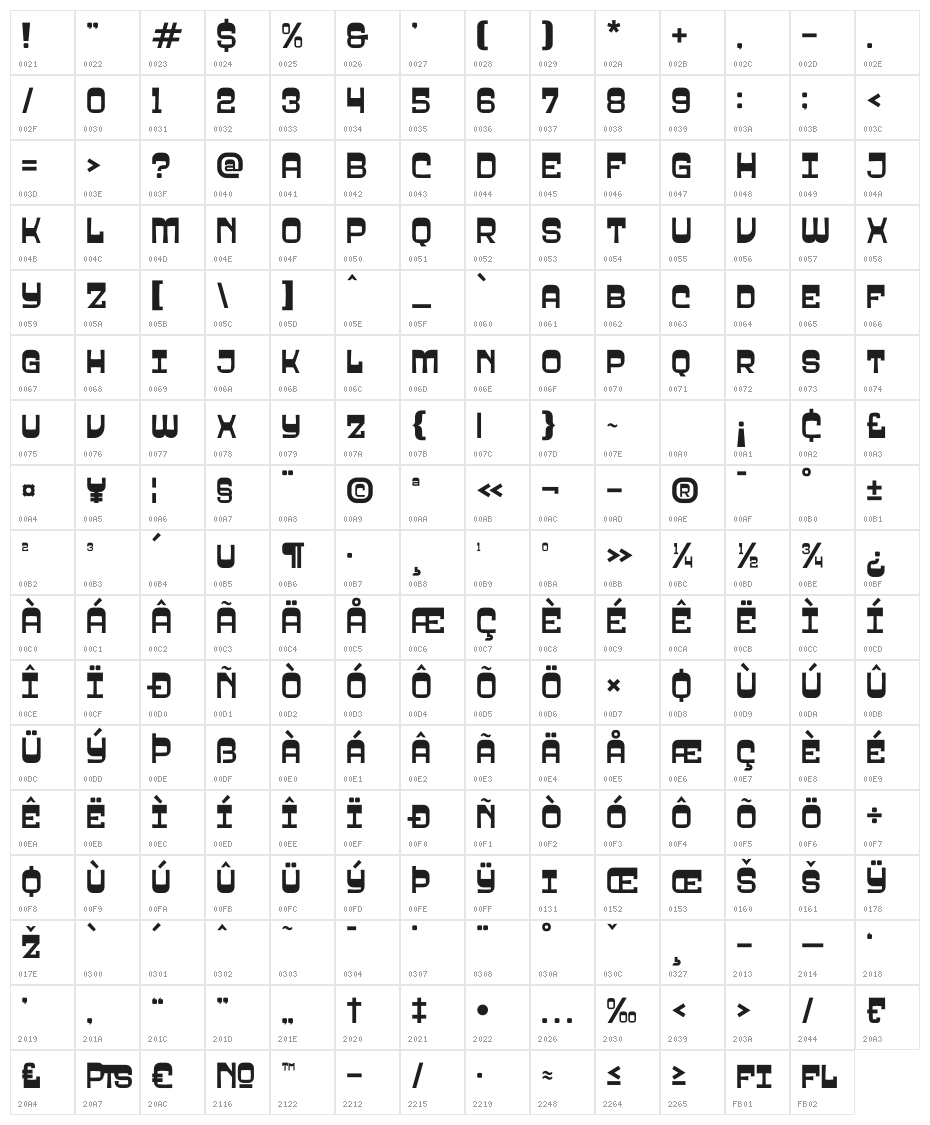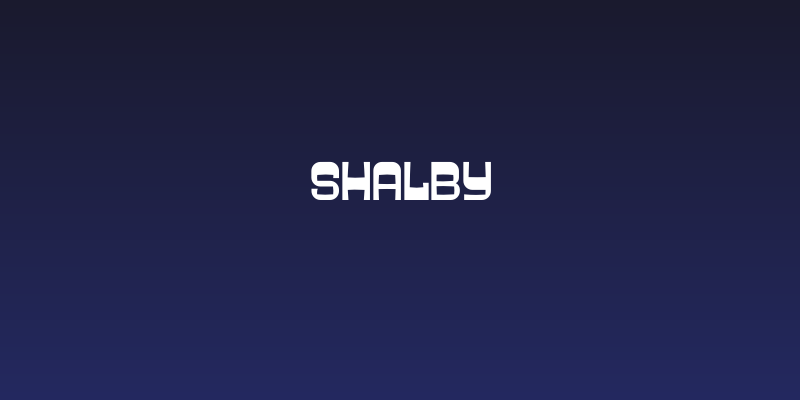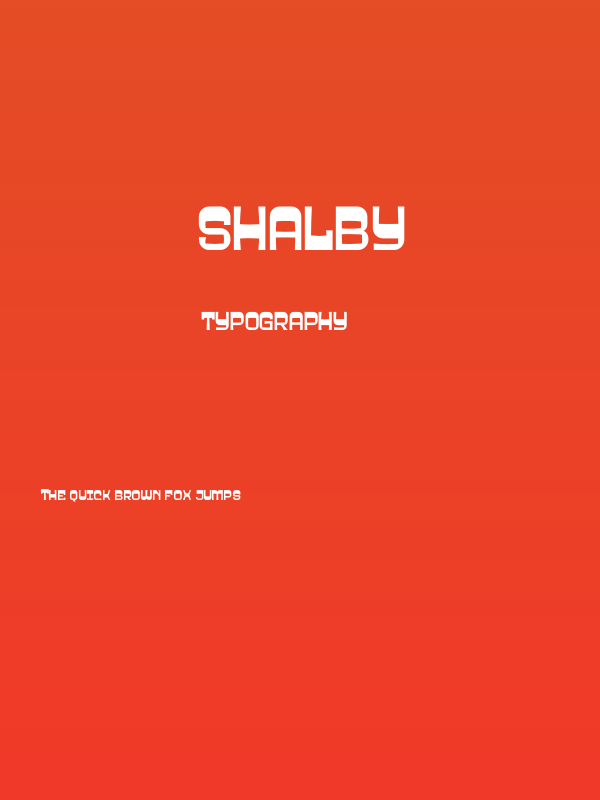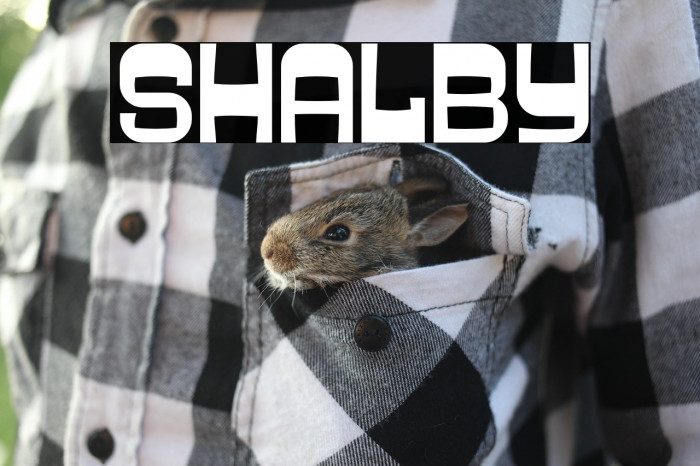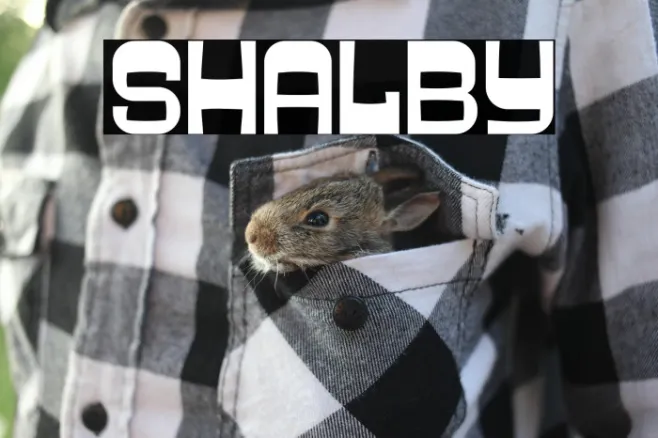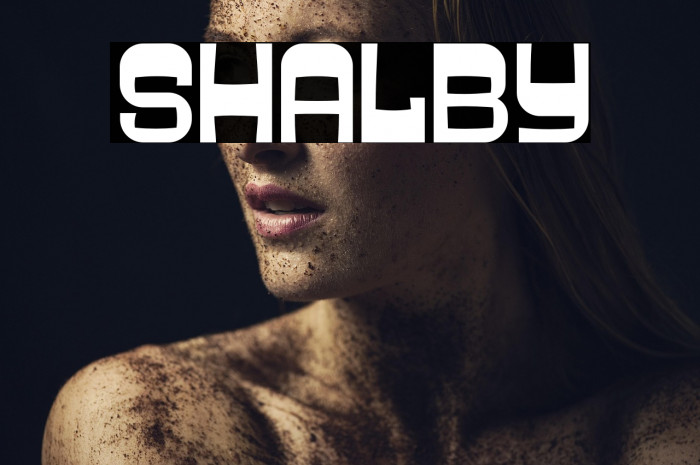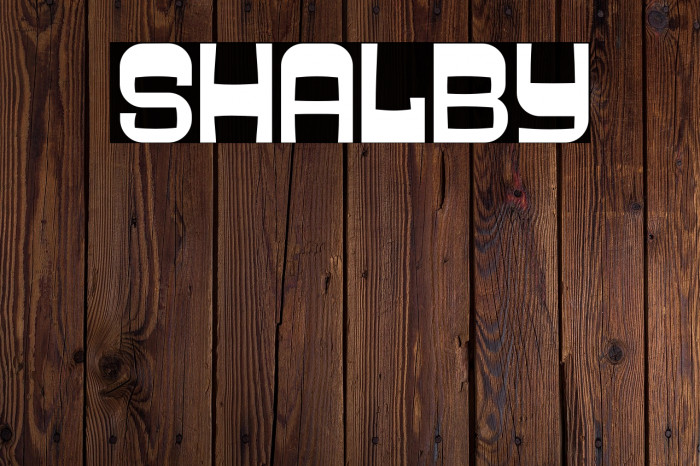
SHALBY Font
SHALBY Description
This font features a bold and geometric style with a modern twist. The characters are constructed with strong, angular lines and a consistent thickness throughout, giving it a robust and impactful appearance. The uppercase and lowercase letters maintain a uniform height, contributing to a cohesive look. The numerals and special characters are designed to match the boldness and geometric nature of the alphabet, ensuring a harmonious overall design. This font is ideal for projects that require a strong visual presence and a contemporary feel.
| Proposed Projects | Ideal for branding, posters, headlines, and any design requiring a strong visual impact. |